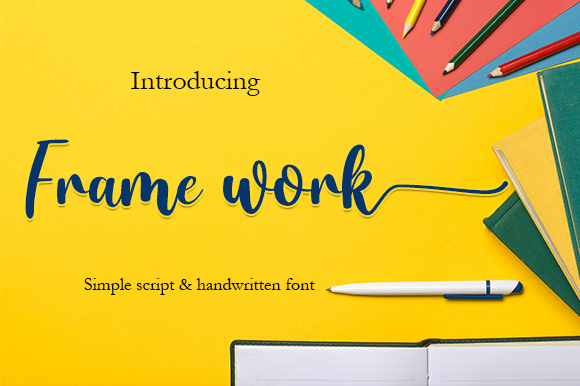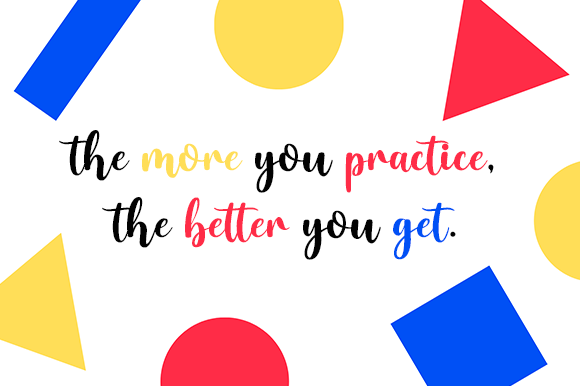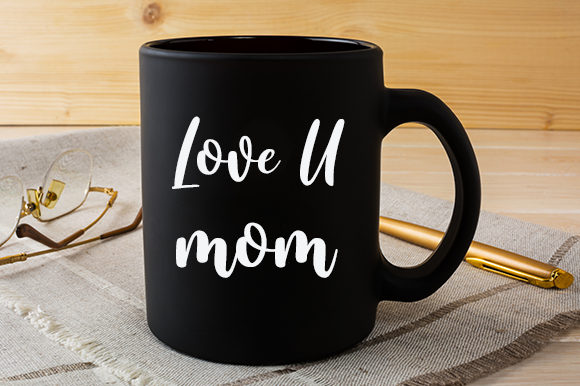
About Frame Work Font
Frame Work is a splendid, light lettered handwritten font with a unique feel and a stunning impact. It will add a luxury spark to any design project that you wish to create! This font is PUA encoded which means you can access all of the amazing glyphs and ligatures with ease!